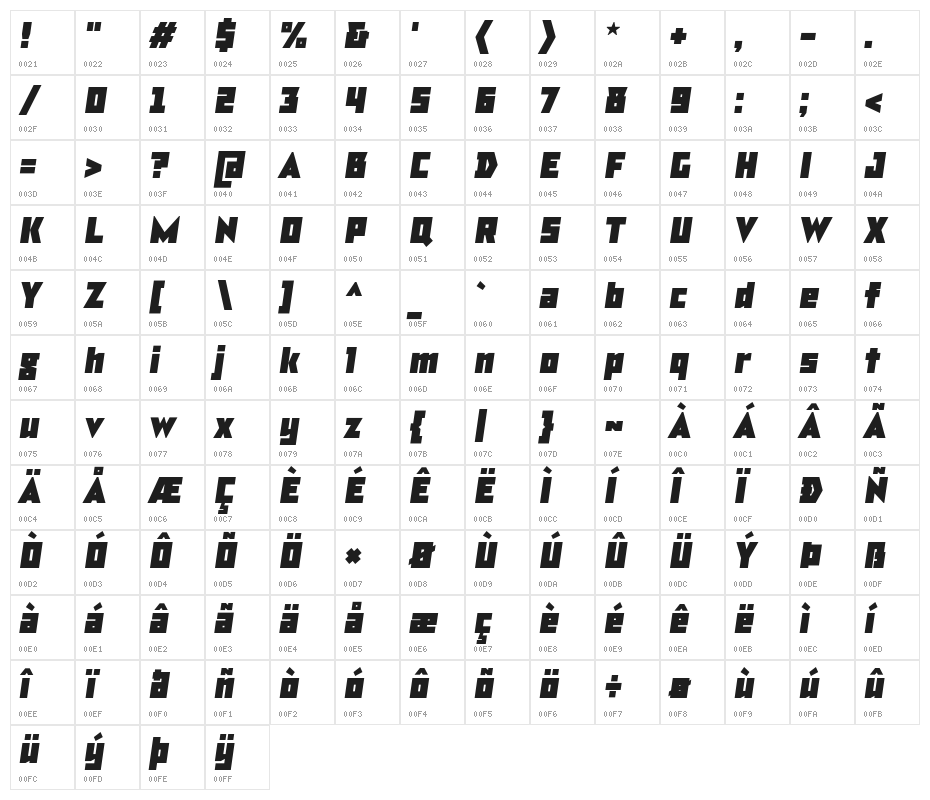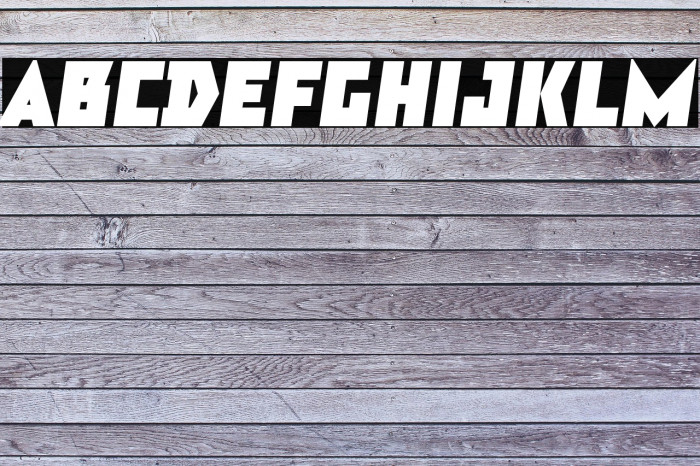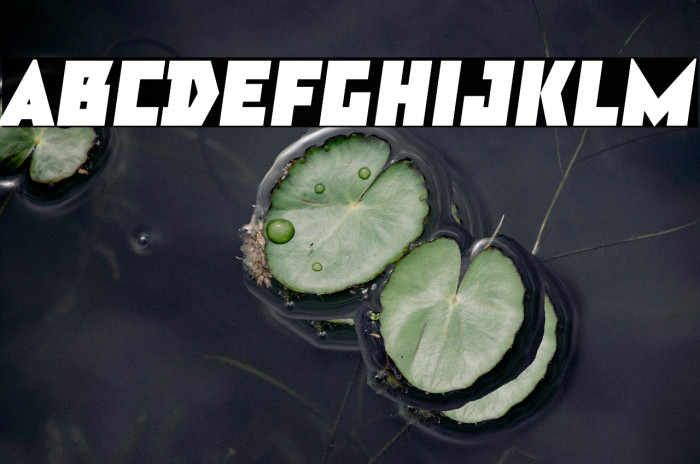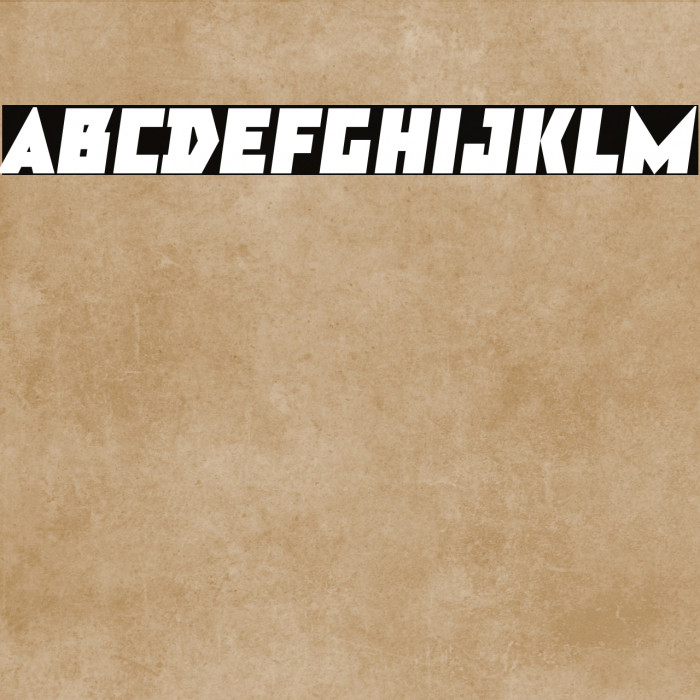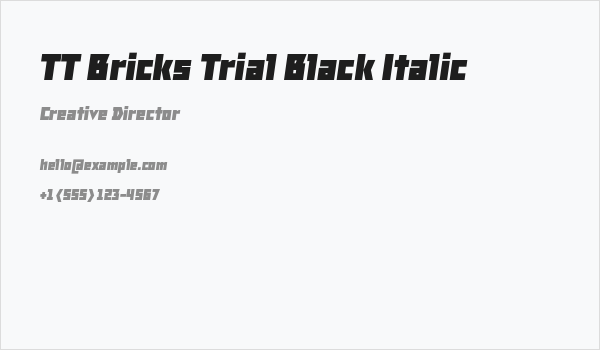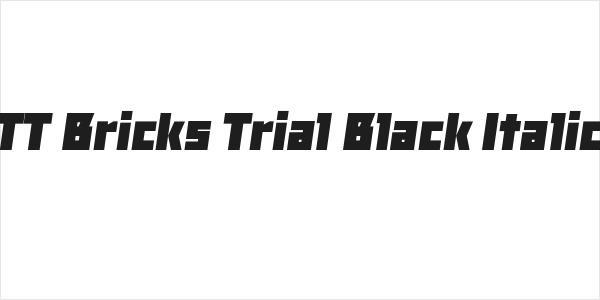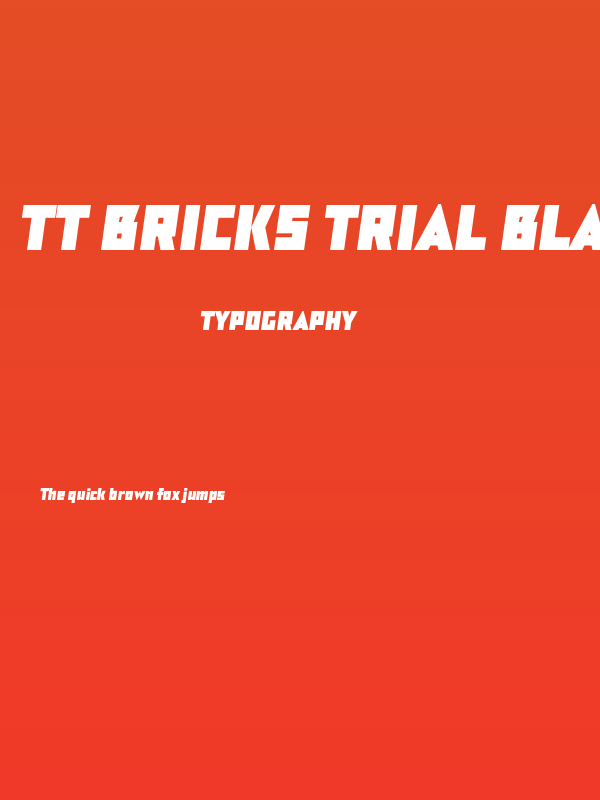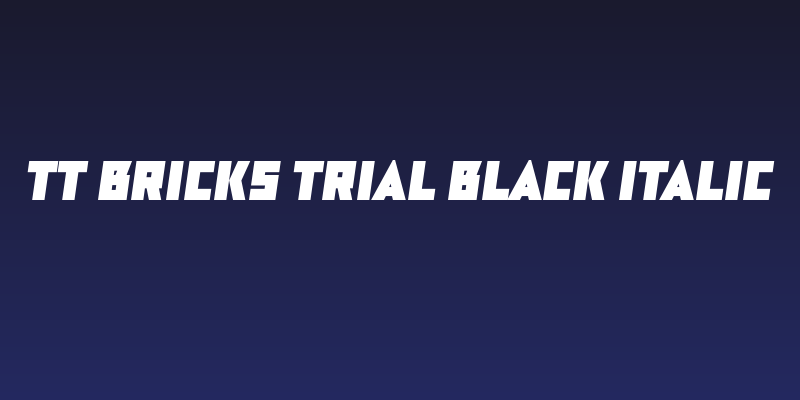
TT Bricks Trial Black Italic Font
TT Bricks Trial Black Italic Description
This typeface exhibits a bold and dynamic character with a distinctly geometric and angular design. The letters are sharply cut with a strong emphasis on diagonal lines, giving it a modern and edgy appearance. The italic slant adds a sense of motion and urgency, making it stand out in any design. The uppercase and lowercase letters maintain a consistent style, with the lowercase being slightly more compact. Numbers and special characters follow the same angular and bold aesthetic, ensuring uniformity across all glyphs. This font is ideal for projects that require a strong visual impact and a contemporary feel.
| Proposed Projects | Perfect for branding, posters, headlines, and any design requiring a strong, modern aesthetic. |